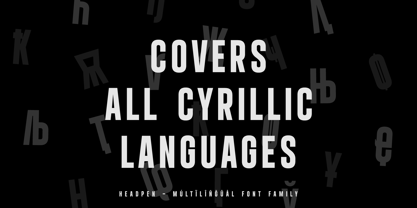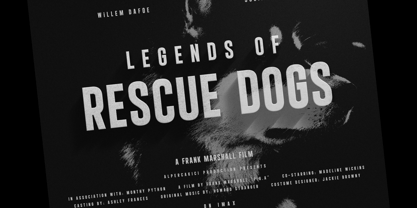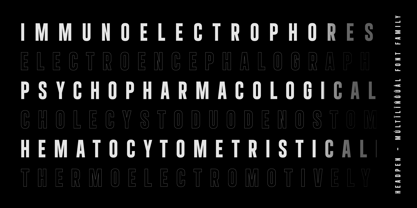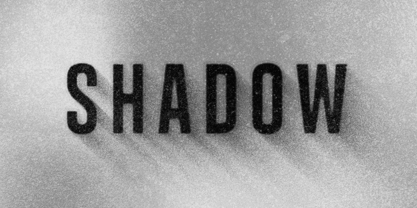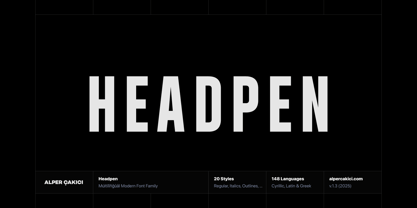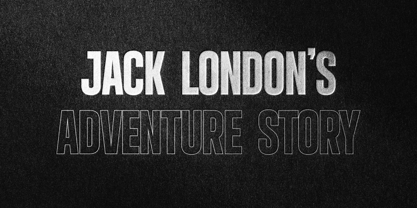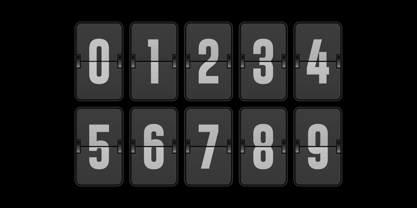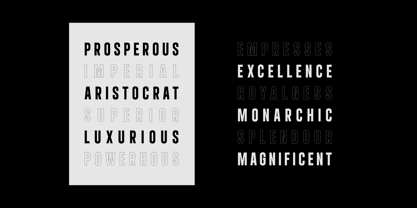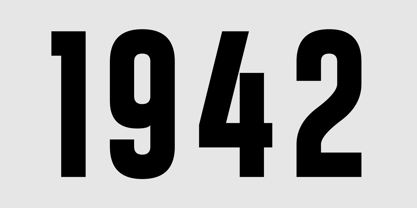
Headpen
by AlperCakici
The Headpen Font Family was designed by Alper Çakıcı and published by AlperCakici. Headpen contains 20 styles and family package options. More about this family
Headpen is a geometric sans with presence — clean, confident, and crafted for impact. Its rounded precision and sharp geometry strike the perfect balance between modern minimalism and bold expression. With 20 meticulously designed styles, Headpen offers complete creative flexibility — from sleek inline and outline variations to commanding ultra-black weights. Whether used in print or digital, it delivers exceptional clarity for logos, headlines, posters, packaging, and branding. Every curve, counter, and connection is shaped for harmony — balanced proportions, smooth transitions, and refined edges that hold their strength in any layout. ✨ Inside the Family: • 20 fonts — including Inline, Outline, Regular, Shade, Rounded, Shadow and matching Italics • Clean geometric construction with a smooth, modern finish • Perfect for bold titles, elegant headers, and timeless brand identities • Supports 148 languages, including full Cyrillic and Greek coverage With precision kerning and finely tuned spacing, Headpen ensures professional results across every medium. Merging classic geometric proportions with a contemporary aesthetic, it’s a typeface that’s both versatile and distinctive — designed for creators who value precision, clarity, and attitude. Headpen doesn’t just communicate — it commands attention.
Designers: Alper Çakıcı
Foundry: AlperCakici